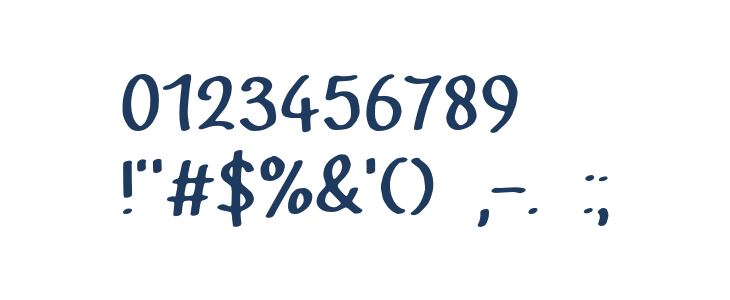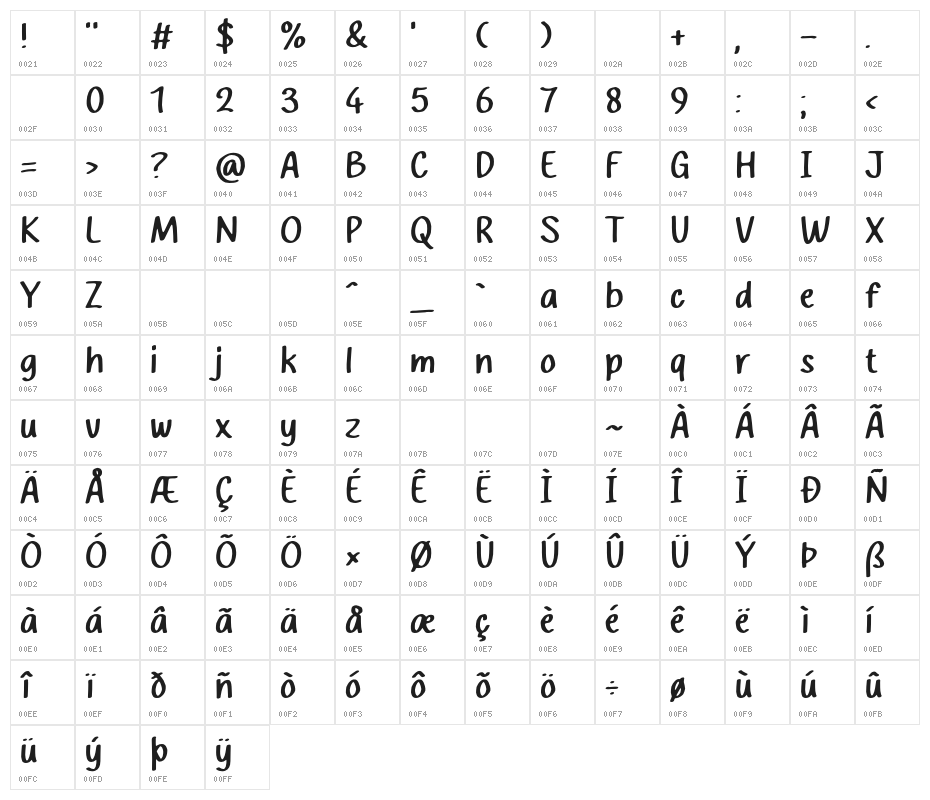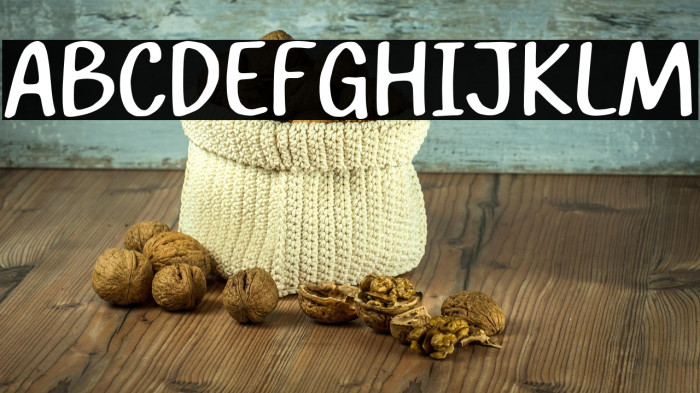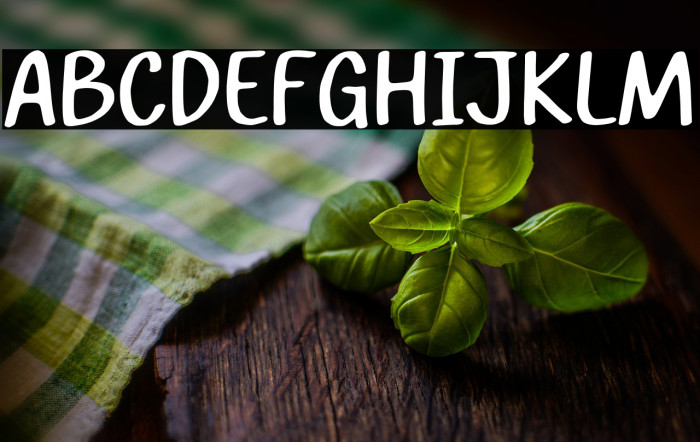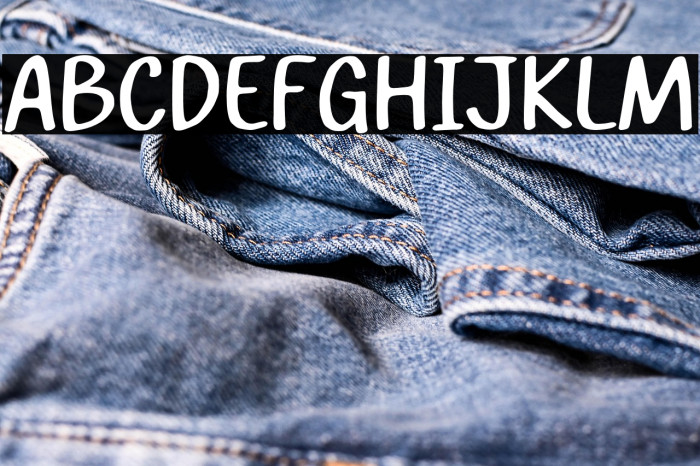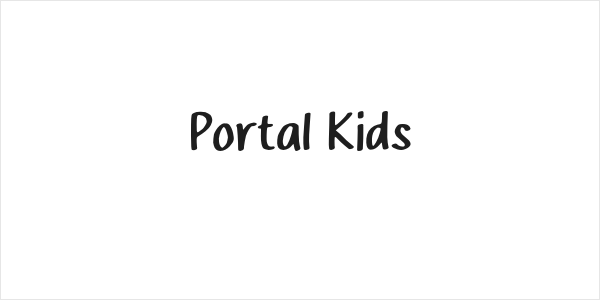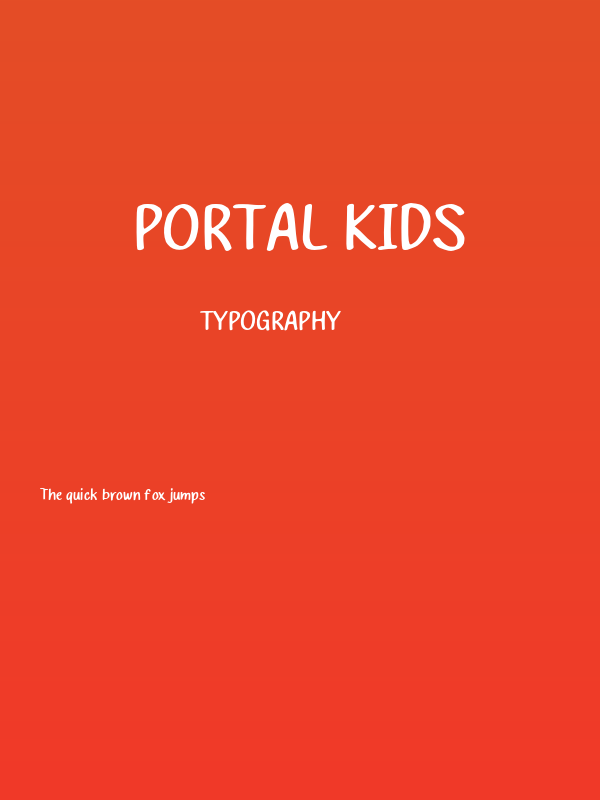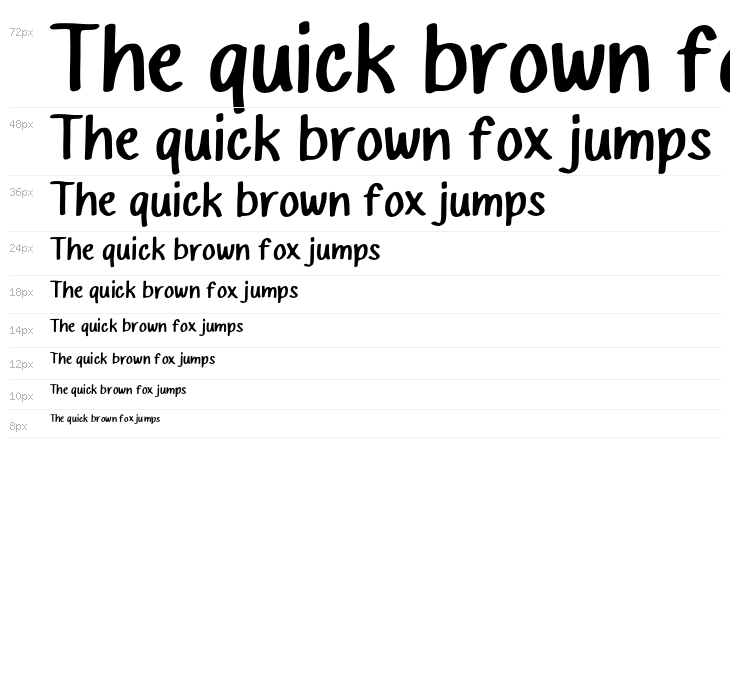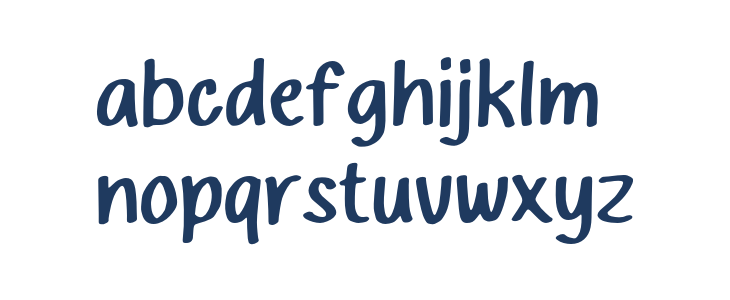
Portal Kids Font
Portal Kids Description
This playful and whimsical font features a handwritten style with a casual and friendly appearance. The characters are slightly rounded, giving them a soft and approachable feel. The uppercase and lowercase letters maintain a consistent style, with a slight slant that adds to the informal and relaxed vibe. The numerals and special characters are designed to match the overall aesthetic, ensuring a cohesive look across all text elements. This font is perfect for projects that require a touch of fun and creativity, making it ideal for children's books, playful branding, or any design that aims to convey a sense of joy and lightheartedness.
| Overall Style | Playful, Casual |
| Proposed Projects | Children's books, playful branding, creative invitations, casual posters. |